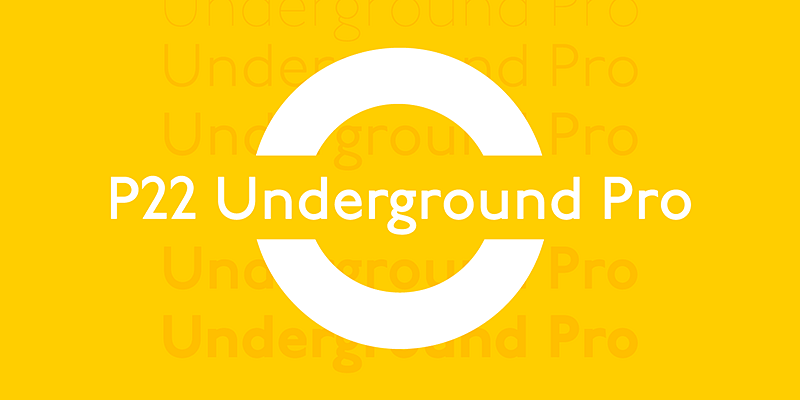
P22 Underground specimen
P22 Underground
P22 Underground Pro is based on the Edward Johnston’s Sans design of 1913 commissioned by The Underground Group to be used as their corporate identity font, and the London Underground signage system.